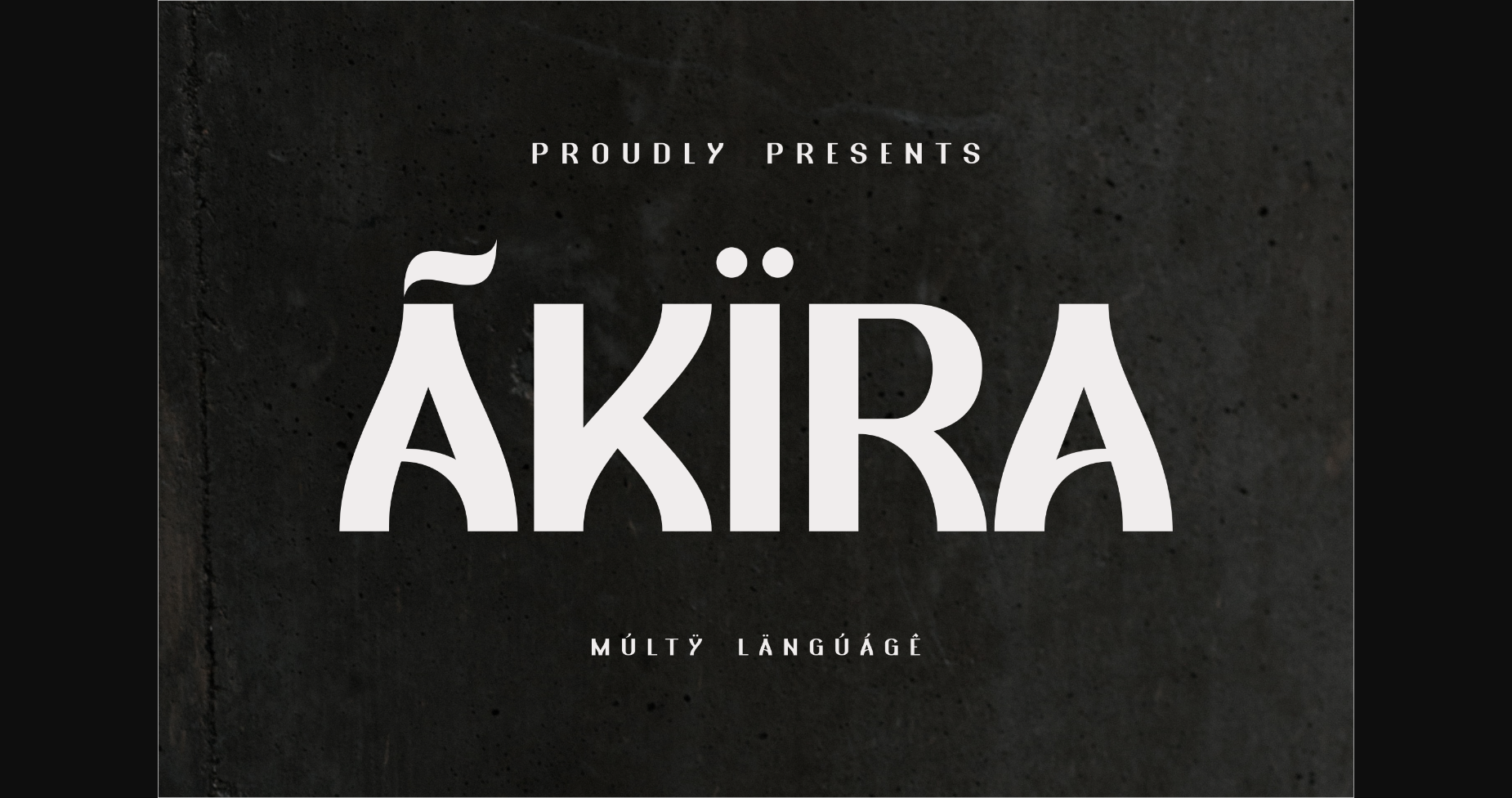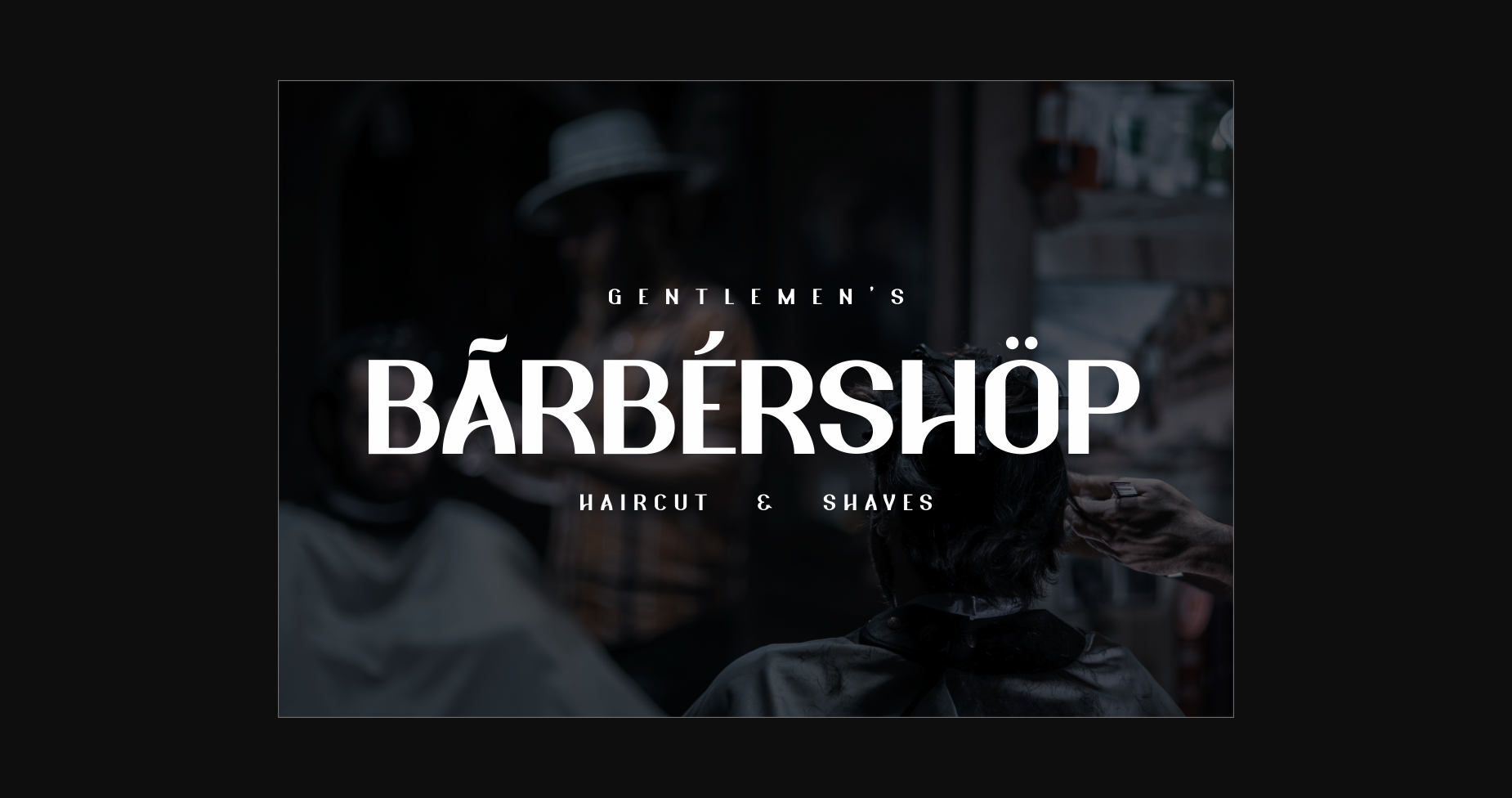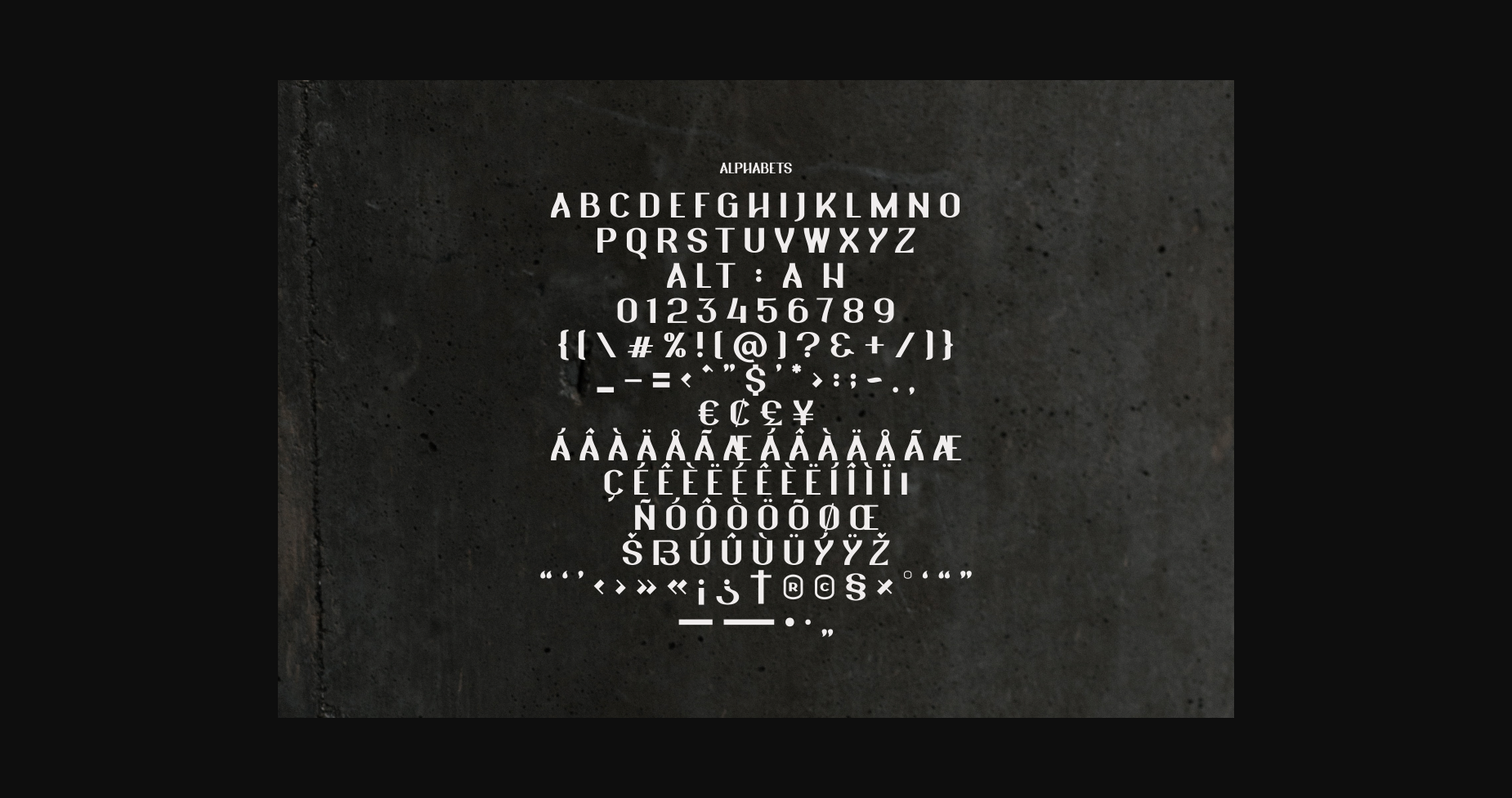
HomeSans Serif FontsAkira Font Sans Serif Fonts Akira Font FacebookXPinterestWhatsApp 1 of 5 ... Akira Font Poster 2... Akira Font Poster 3... Akira Font Poster 4... Akira Font Poster 5... About Akira Font Akira is a cool and incredibly stylish sans serif font. Add this captivating font to your designs and notice how it makes them stand out! DOWNLOAD NOW People also explored Winter Font Sheilablue Font Goat Font Snoozefest Font Bellie – A Handwritten Font Victoryan Antecia Font Katrine Font Nathaniela Font Doodle Pen 321 0 TagsAkiraAkira Font Previous articleOlivier FontNext articleGinora Font LEAVE A REPLY Cancel reply Comment: Please enter your comment! Name:* Please enter your name here Email:* You have entered an incorrect email address! Please enter your email address here Website: Save my name, email, and website in this browser for the next time I comment. Personal Use Free Dream Orphans Personal Use Free Read more about this font Drip October Font Personal Use Free Read more about this font Green Farmhouse Personal Use Free Read more about this font Hello Sister Personal Use Free Read more about this font BLOG Exploring Font Trends Shaping Communication in the Digital Era Fonts, like all design elements, are subject to trends. They play a crucial role in communicating a brand's personality,... Elegant Wedding Invitation Fonts – Handwritten & Script Fonts Top 10 Handwritten Fonts That Elevate Your Designs Fonts That Capture the Spirit of New York City